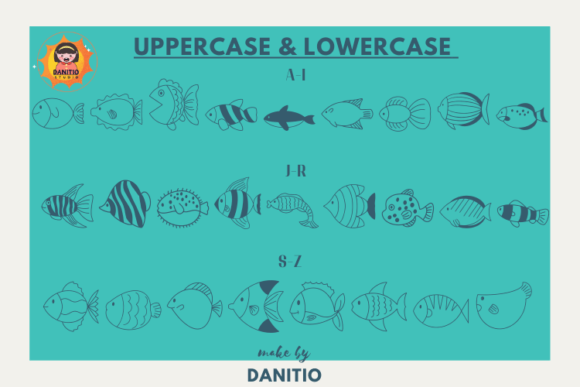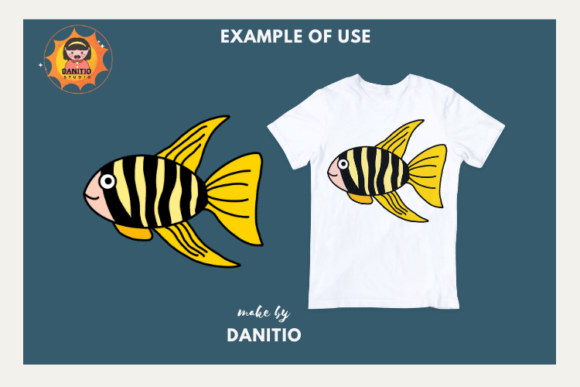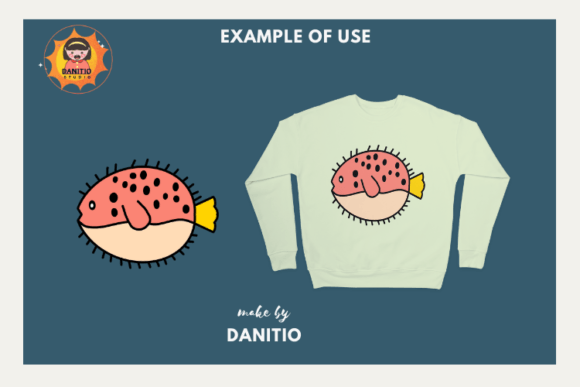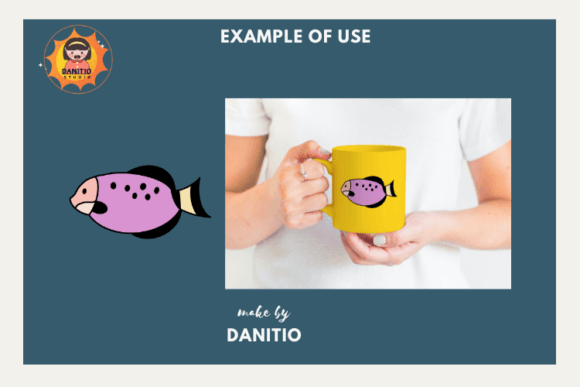
Introduction to Fish Font
Have you ever stared at a blank canvas, wondering where to start on your next creative project? The spark of inspiration can be elusive, but sometimes all it takes is a dash of whimsy to get the creative juices flowing. For designers, finding the perfect font can be just that spark. And if you’re looking for a high-quality design resource that’s sure to bring a smile to your face, look no further than the delightful Fish Font.
With its adorable array of fish characters, this free download is a treasure trove of creative possibilities. Whether you’re designing digital artifacts, presentations, or greeting cards, the Fish Font is the perfect addition to your toolkit. Its transparent background makes it easy to layer and customize, giving you the flexibility to bring your ideas to life.
Key Features of Fish Font
- High-resolution vector graphics for crisp and clear display in various creative projects
- Features a transparent background, allowing for easy layering and customization in creative projects
- Includes a range of fish-inspired glyphs and symbols, perfect for use in water-themed designs, packaging, and branding
- Designed to be highly scalable, ensuring that the font remains clear and legible at any resolution or size
Honest Review: Fish Font
I recently had the chance to work with the Fish Font, and I must say it’s a great addition to any designer’s toolkit. This high-quality font is perfect for any creative project that needs a touch of whimsy.
One of the things that stood out to me about Fish Font is its versatility. It’s a great resource for designers who want to add some personality to their work without overpowering the rest of the design. I particularly loved the fact that it comes with a transparent background, making it easy to layer with other elements.
- Great resource for adding personality to designs
- May not be suitable for all types of designs (e.g. formal, professional projects)
Overall, I was impressed with the Fish Font and would definitely recommend it to designers looking for a fun and creative font to add to their design arsenal.
Fish Font is a high-quality design resource that offers a unique and creative way to enhance your visual projects. This free download is perfect for designers and artists looking to add a touch of elegance to their work.
Tips for Getting the Most Out of Fish Font
To get the most out of Fish Font, experiment with different font sizes, styles, and colors. You can also pair it with other design elements, such as images and shapes, to create a cohesive and visually appealing design.
Fish Font is perfect for creative projects, such as graphic design, digital art, and typography. It’s also great for branding and marketing materials, like logos and business cards.
Is Fish Font suitable for use in digital art and graphics?
Yes, Fish Font is designed to be versatile and can be used in a variety of digital art and graphics projects. Its transparent background and high-quality design make it an excellent choice for creating visually appealing graphics and artwork.